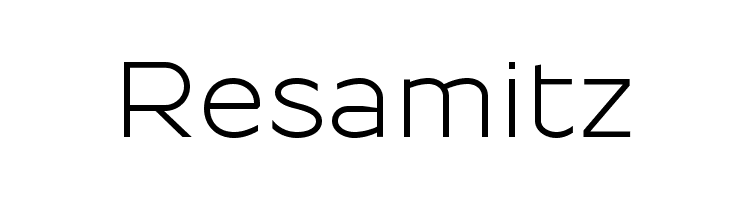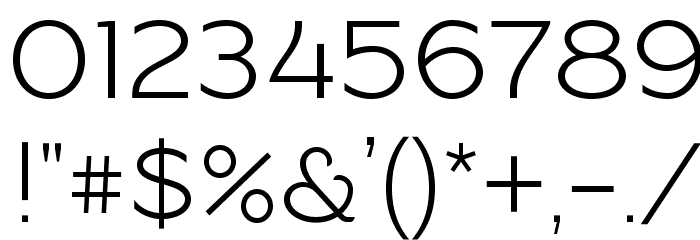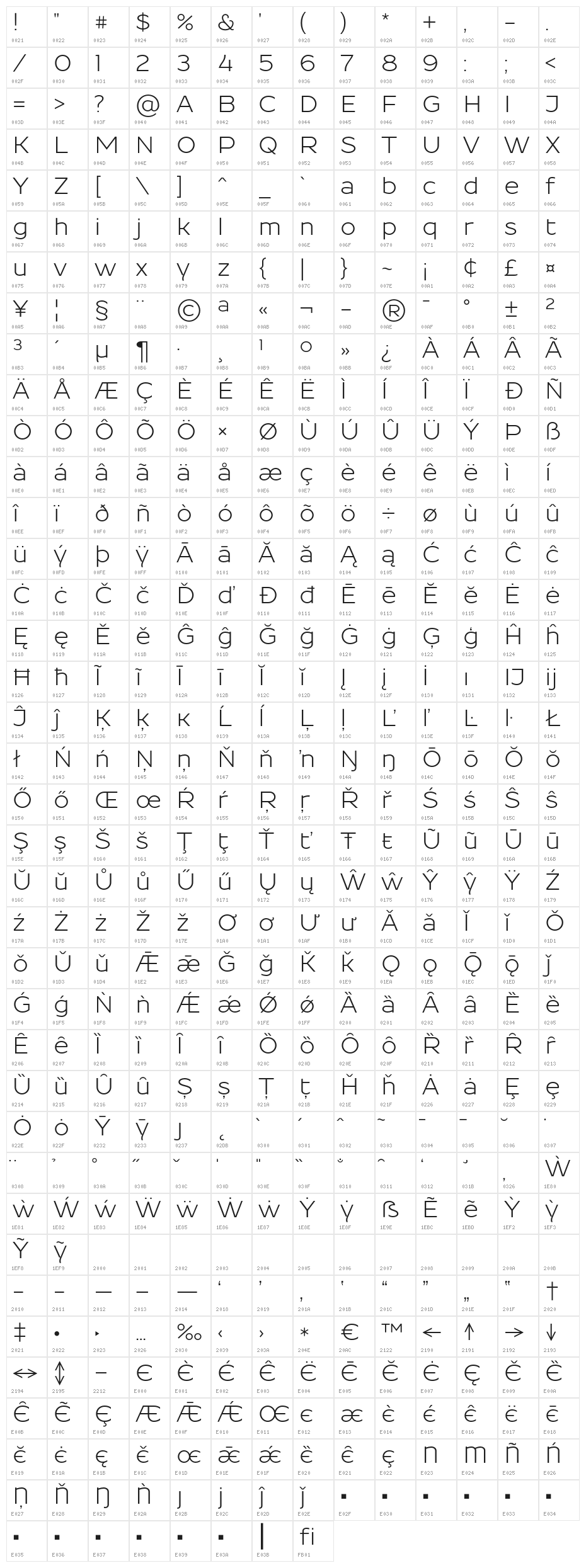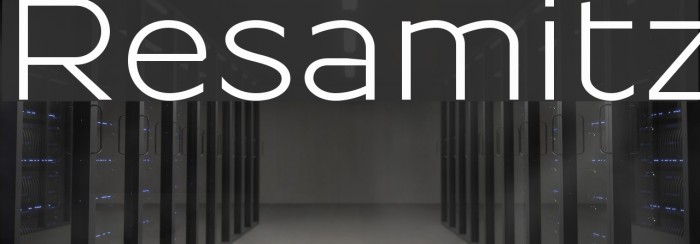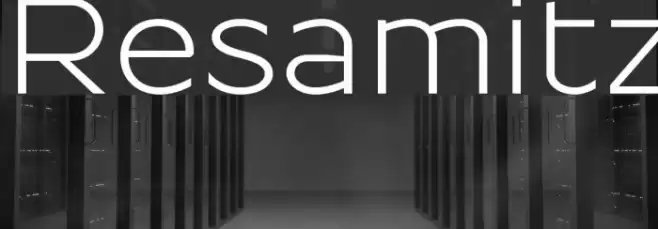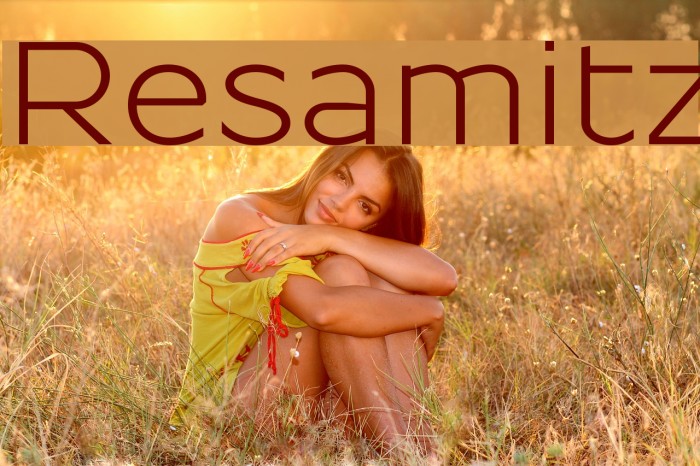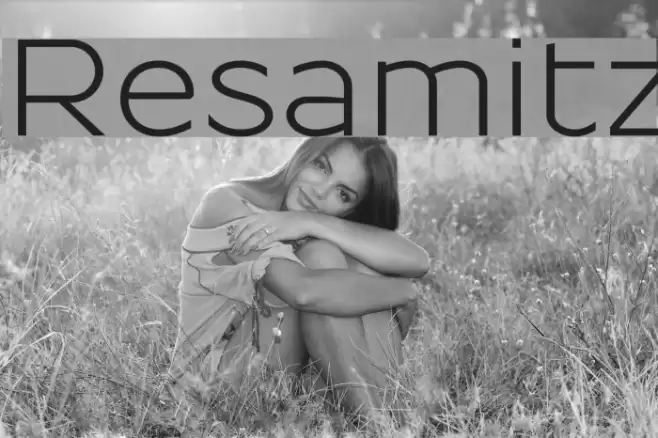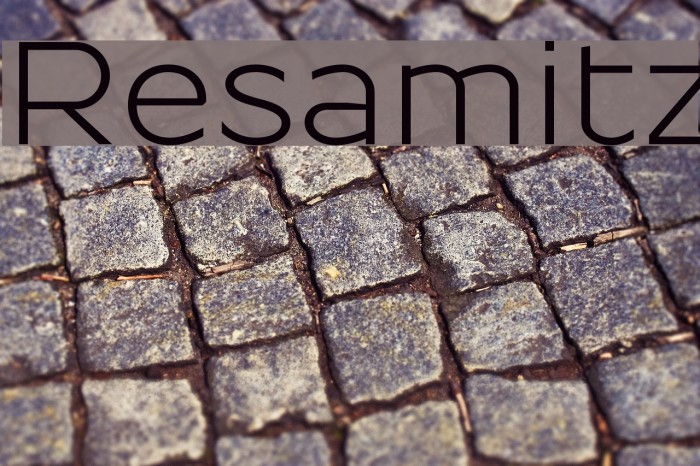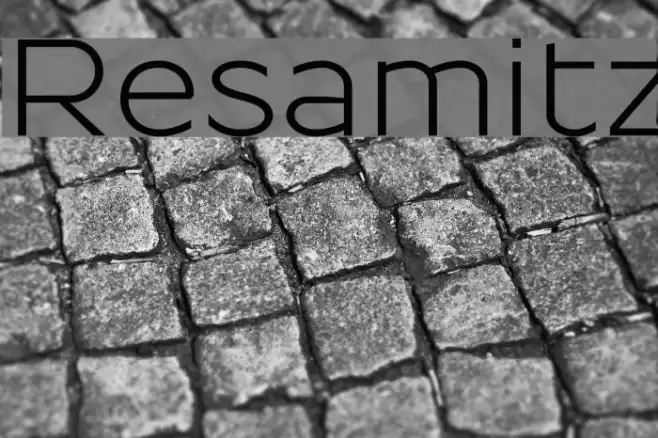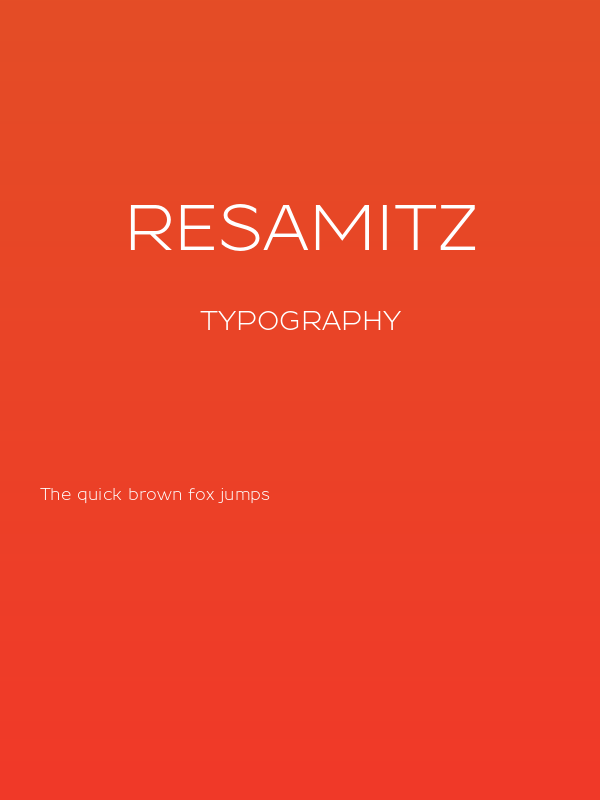
Resamitz Font
Resamitz Description
This font features a clean and modern sans-serif design, characterized by its geometric shapes and uniform line thickness. The uppercase letters are bold and straightforward, with a slightly rounded appearance that adds a touch of softness to the overall look. The lowercase letters maintain the same geometric style, offering a harmonious balance between the two cases. Numbers are clear and easy to read, making them suitable for various applications. The special characters are well-integrated, maintaining the font's cohesive design. Overall, this font exudes a contemporary and professional feel, making it versatile for a wide range of design projects.
| Proposed Projects | Ideal for branding, web design, advertising, and editorial layouts. |